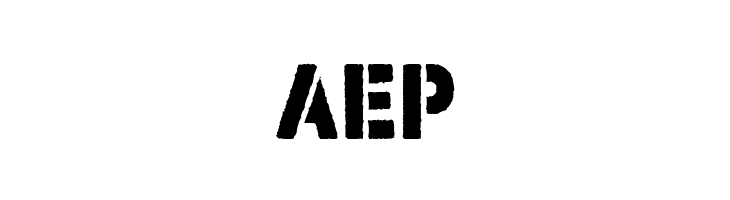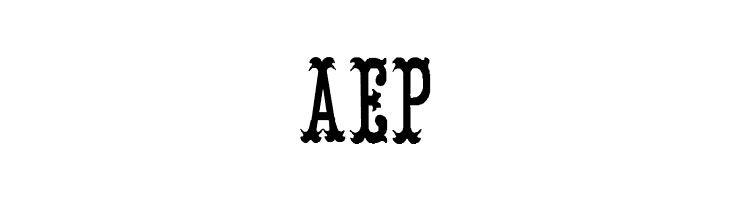
A bold, classic serif font with strong, well-defined letterforms.
A bold, rounded slab serif display font with playful, exaggerated forms.
A modern, angular serif font with a futuristic and bold design.
A modern, italic font with sleek, elongated characters and a dynamic style.
A bold, stencil-style font with a rugged, military-inspired look.
A modern, playful font with rounded, tubular forms and consistent stroke widths.
A graceful, handwritten script font with fluid, connected letters.
A playful and elegant script font with flowing, interconnected letterforms.
A bold, decorative font with vintage circus-inspired detailing.
A dynamic script font with fluid, connected strokes and a hand-drawn feel.